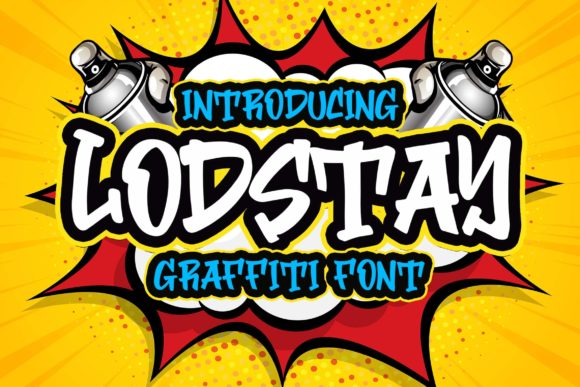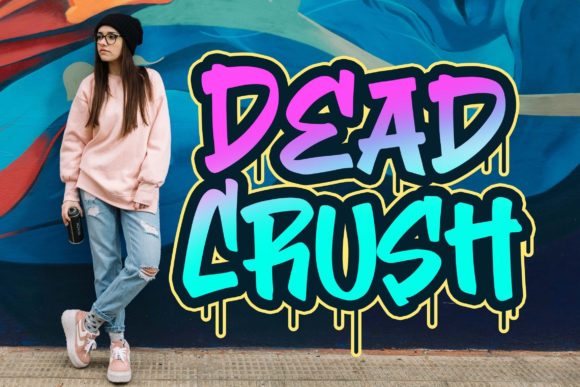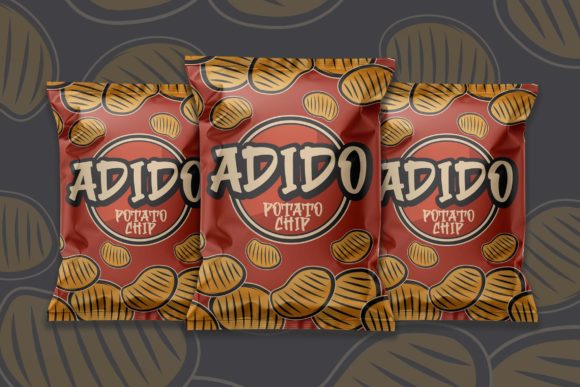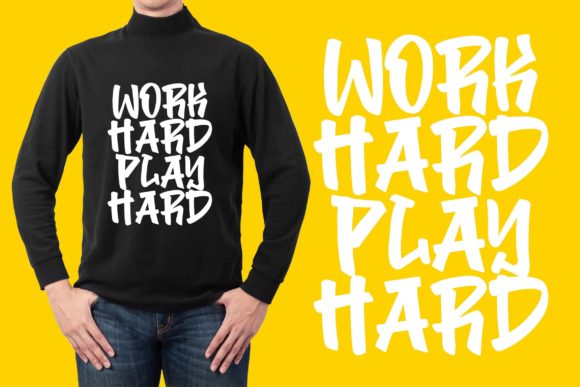
Lodstay Font
About the Lodstay Font
Discover the charm of Lodstay Font. This font is a perfect blend of modern aesthetics and classic appeal. Lodstay is a bold, dramatic, urban styled display font. Add this font to your favorite creative ideas and notice how it makes them come alive!
Lodstay excels in headline applications, short impactful statements, and branding projects requiring a strong visual presence. It’s ideal for posters, logos, and packaging where bold statements are needed, but less suitable for body text or extended reading due to its dramatic weight. Avoid using it in user interfaces or situations demanding high legibility over short distances.
Its inherent boldness pairs well with clean sans-serif fonts like Open Sans or Lato for a balanced contrast. For a more refined aesthetic, consider pairing it with a classic serif like Garamond or a delicate script font like Great Vibes to create visual hierarchy. This allows Lodstay to command attention while other typefaces provide readability where needed.
The overall personality of Lodstay is assertive and modern, conveying confidence and urban energy. It’s a powerful choice for brands projecting strength, innovation, or a sophisticated edge.
Lodstay Font Usage Examples
Lodstay Font Example